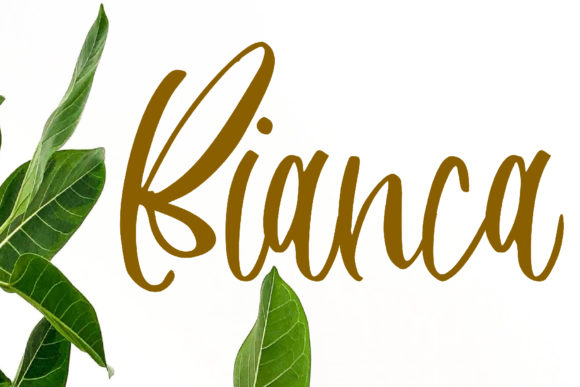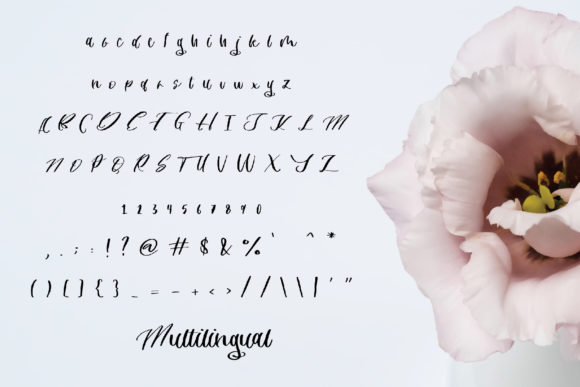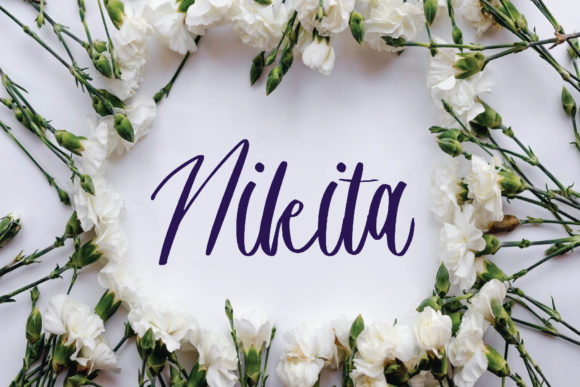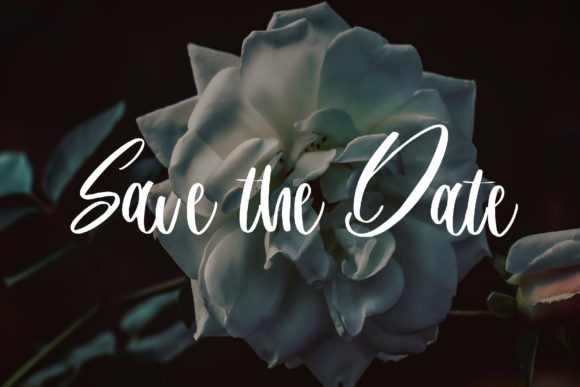
Ayudia Font
About Ayudia Font
Ayudia: Embrace the Timeless Elegance of a Flowing Handwritten Font
Meet Ayudia, a font that gracefully flows like a gentle stream, leaving behind an aura of elegance in every curve. Its beauty lies in its seamless strokes and exquisite touch, making it the perfect companion for all your favorite projects. Prepare to be enamored by its distinct charm, as it captures hearts with its timeless style, allowing you to create truly spectacular designs!
The allure of Ayudia lies in its ability to adapt effortlessly to any project. From romantic wedding invitations to captivating social media posts, this font weaves its magic with finesse, bringing an air of sophistication to everything it touches.
Designing wedding invitations with Ayudia is a dream come true. Each letter dances gracefully, reflecting the love and joy of the occasion. Your invites become a work of art, setting the tone for a celebration that will be etched in memories forever.
Expressing gratitude or sharing inspiration becomes an extraordinary experience with Ayudia. Its flowing nature adds depth to thank you cards and makes quotes feel like pearls of wisdom delicately strung together. Every word carries a touch of elegance, leaving a lasting impact on the hearts of readers.
Greeting cards come alive with Ayudia’s captivating style. Whether it’s a heartfelt birthday wish, a joyful holiday greeting, or a message of love, this font elevates your sentiments to a whole new level, turning each card into a treasured keepsake.
For businesses seeking a logo that stands out, Ayudia is the answer. Its graceful lines lend a touch of sophistication to brand identities, making a lasting impression on customers and setting you apart from the crowd.
And when it comes to creating spectacular designs, Ayudia shines brightly. From posters to flyers, banners to brochures, this font transforms your ideas into visual masterpieces, capturing attention with its unique allure.
Ayudia’s versatility is not limited to its aesthetic appeal; it also offers ease of use. Its legibility ensures smooth readability, making it a delight for both experienced designers and newcomers to the world of creativity.
In conclusion, Ayudia is more than just a font; it’s an embodiment of elegance and timelessness. Embrace its flowing handwritten charm, and let it infuse your projects with an unmatched sense of beauty. Fall in love with its distinct style, and witness how it brings your creations to life. From the most heartfelt occasions to the boldest branding ventures, Ayudia is the key to unlocking a world of limitless possibilities. Let this font be the muse of your creativity, and watch as it transforms your designs into breathtaking works of art.